Best Bold Fonts for Designers to create excellence designs.
Bold fonts are key elements of design language; they are highly potent tools for communication and visual effect.
Any design can benefit from bold typesetting as it commands attention while also helping to show what is more important within a given layout. Whether used for headline, subheading or even call-to-action, this kind of typography directs the eye of the viewer.
Riffic
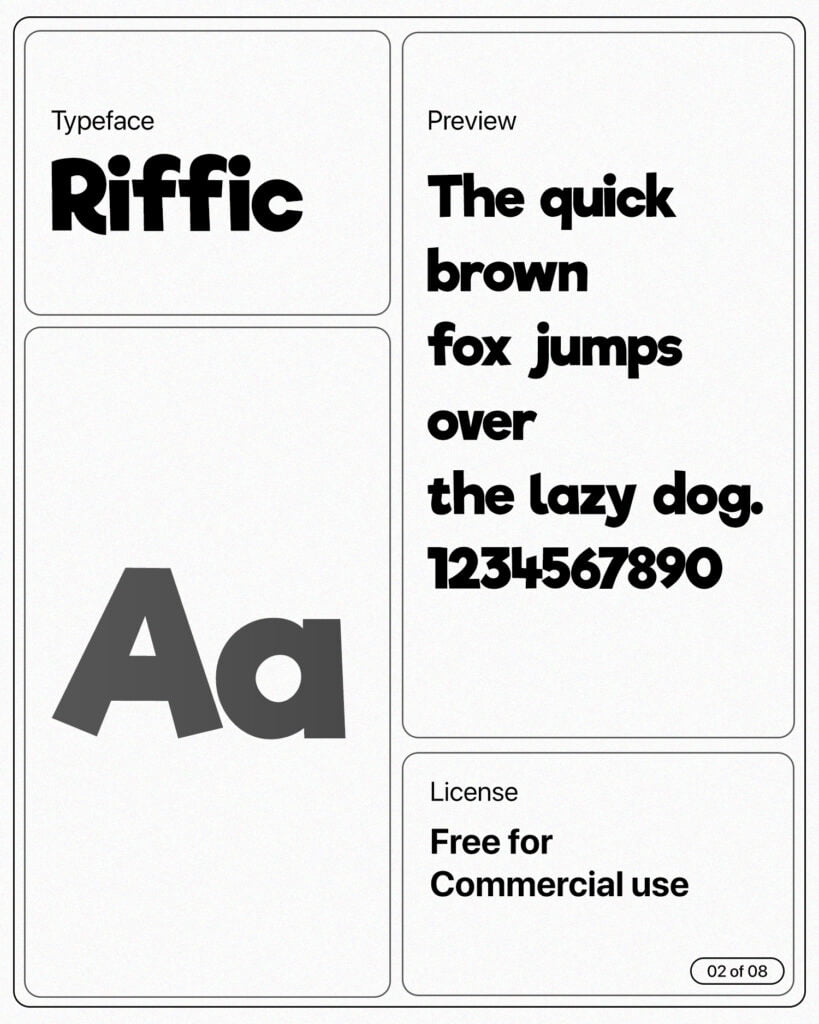
Tex Gyre Adventor
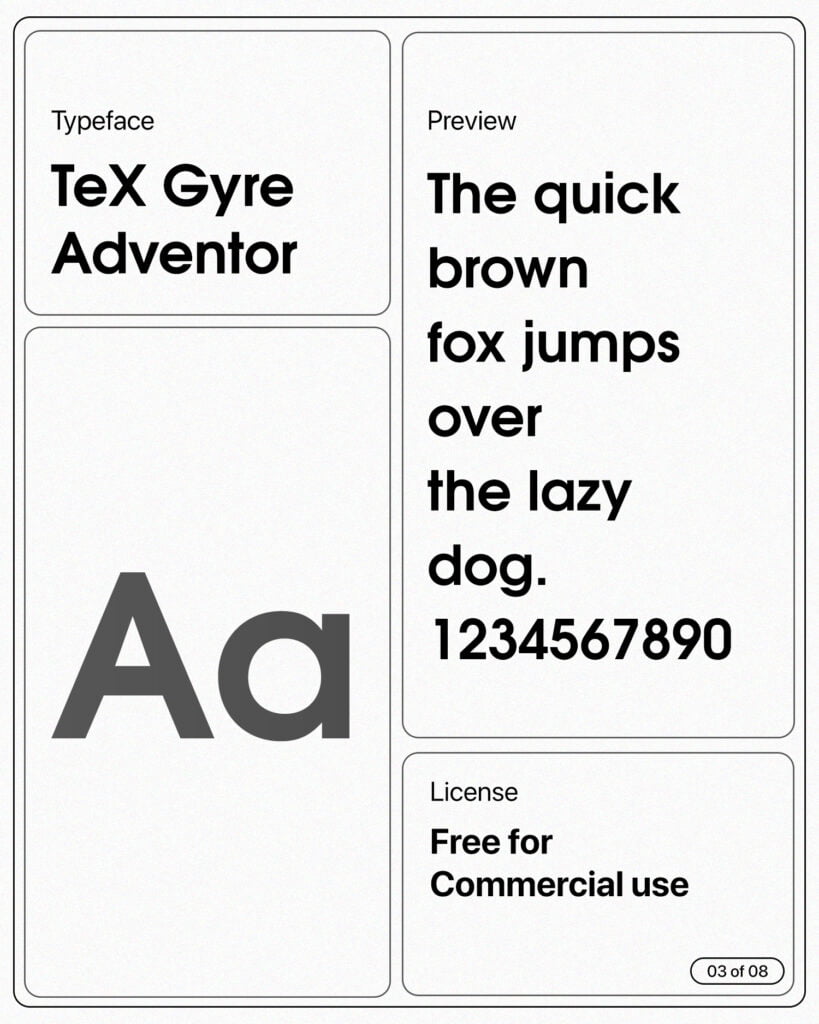
Coolvebica Rg
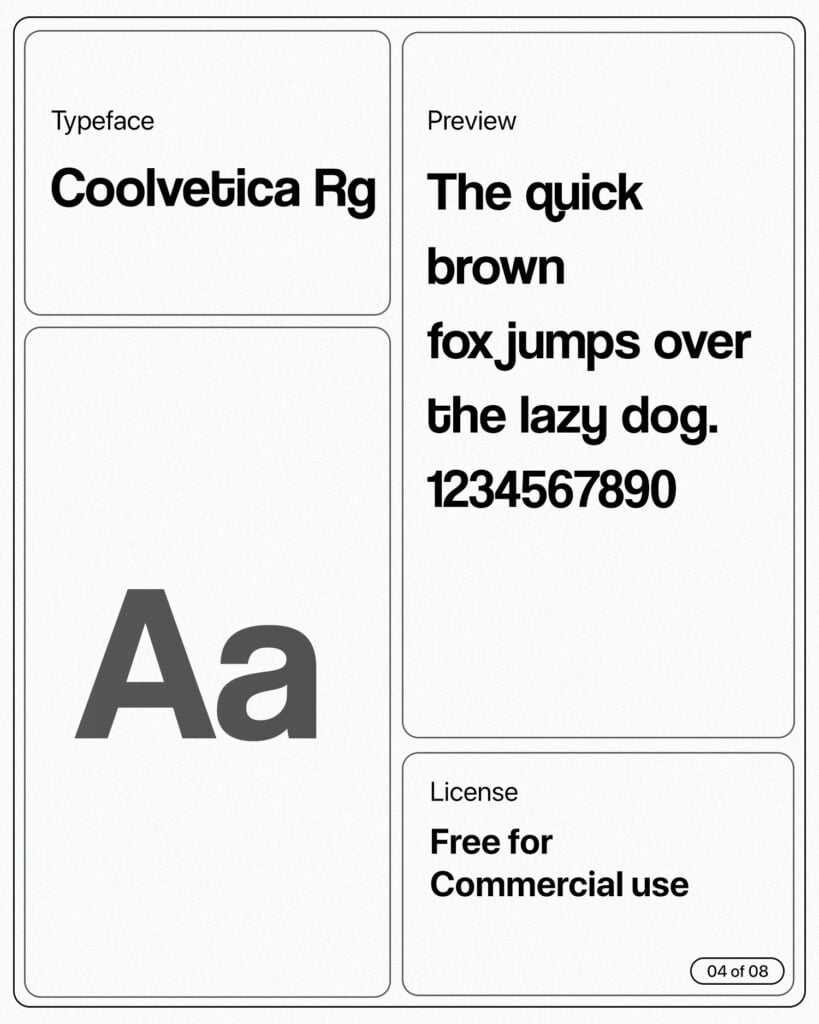
Dream Orphans
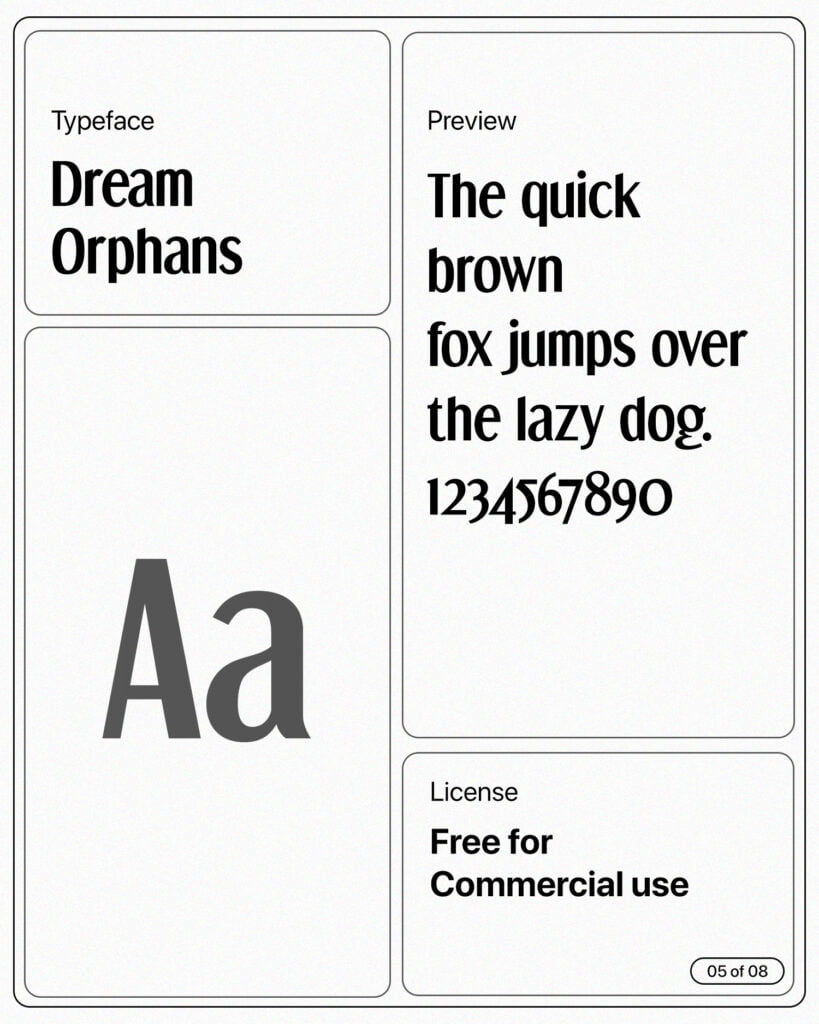
Toiban
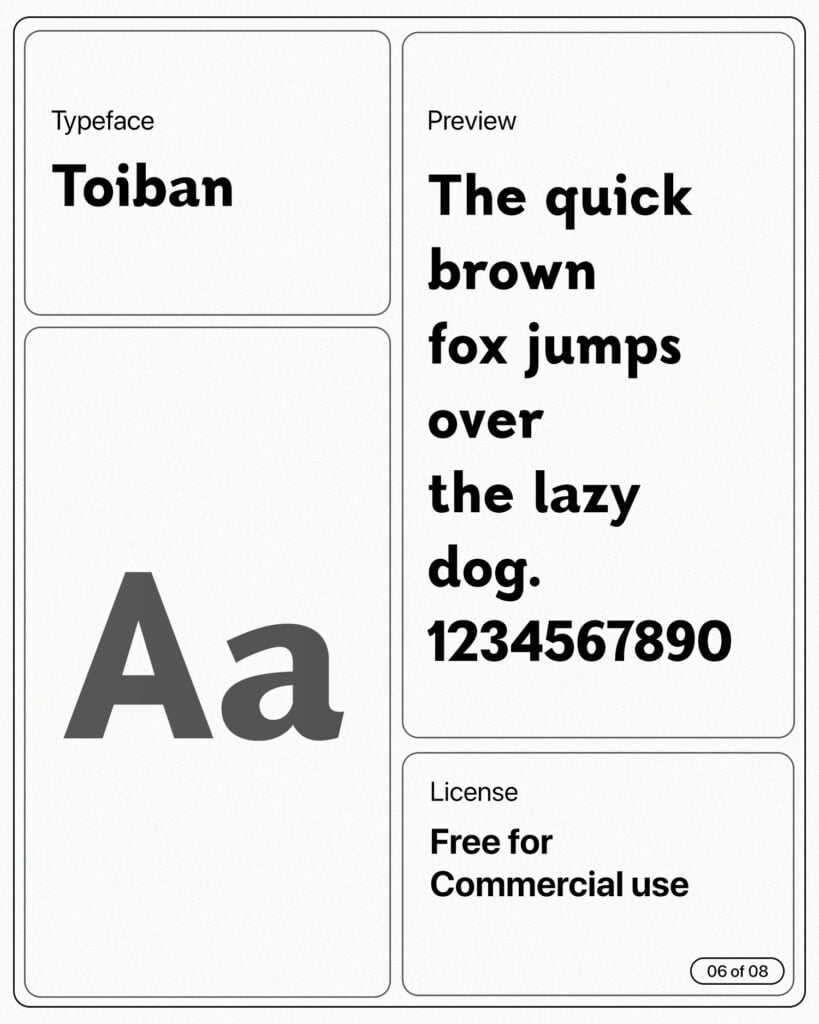
Nunito